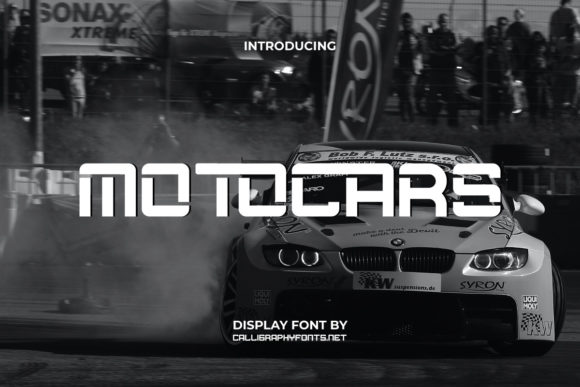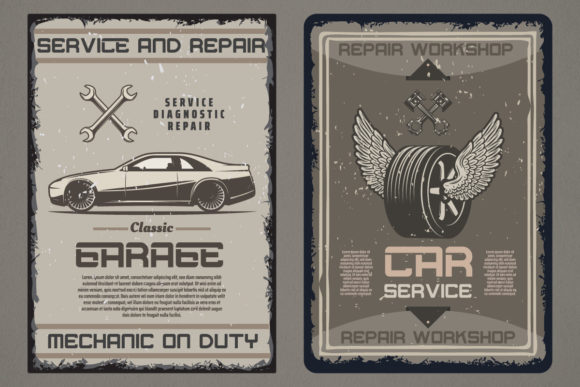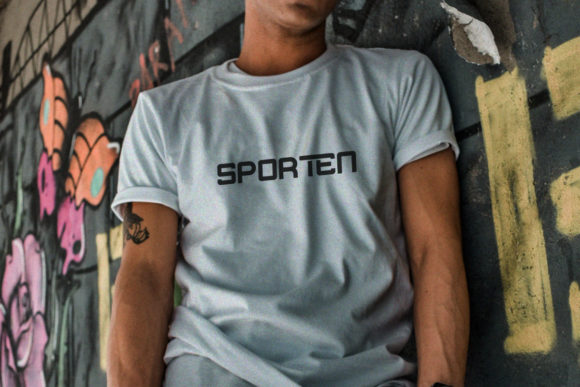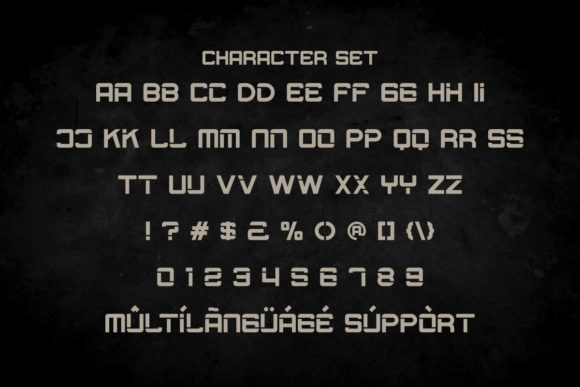
Motocars Font: Bold Display Typography for Racing & Logo Design
About the Motocars Font
Let us introduce you to Motocars Font, where timeless design meets modern craftsmanship. Motocars is a display font family with race and sport style. The font has some characteristics like modern, techno, strong, masculine, sporty, etc. It will be perfect for logos, brandings, headlines, and signage. Motocars font will be awesome for many industries, including racing, sports, techno, festival, games, or movies.
Motocars excels in large-scale applications such as headlines, logos, and posters where its bold, assertive character can make a strong visual impact. It’s ideal for branding projects targeting a masculine, high-performance audience, particularly in automotive, sports, and technology sectors. Avoid using Motocars for body text or lengthy paragraphs; its strong forms are not optimized for readability at smaller sizes.
Pairing Motocars effectively requires considering its forceful personality. A clean sans-serif like Open Sans or a geometric sans-serif such as Futura can provide a sophisticated counterpoint, balancing its aggressive energy with a touch of modern minimalism. For a more rugged aesthetic, a slightly distressed serif like Playfair Display could add texture and a vintage feel, while maintaining visual hierarchy.
The font’s overall mood is powerful and energetic, conveying speed and dynamism. It’s less suitable for projects requiring subtlety or elegance.
Motocars Font Usage Examples
Motocars Font Example